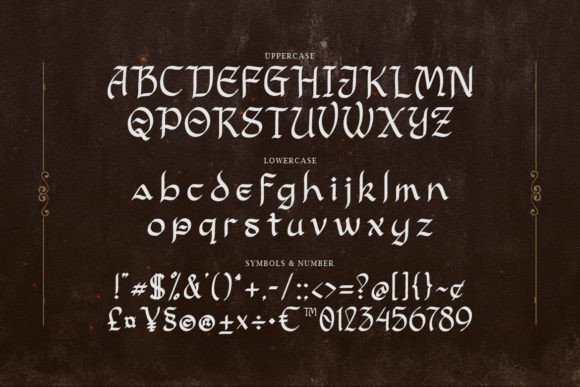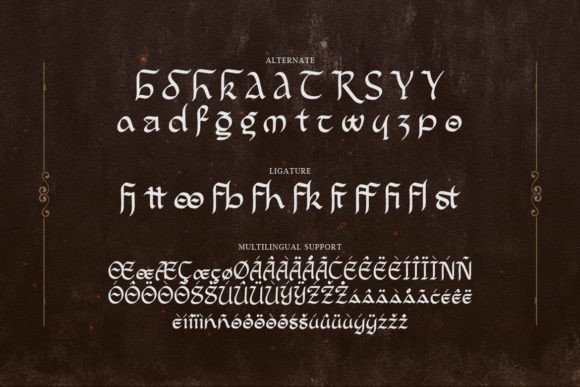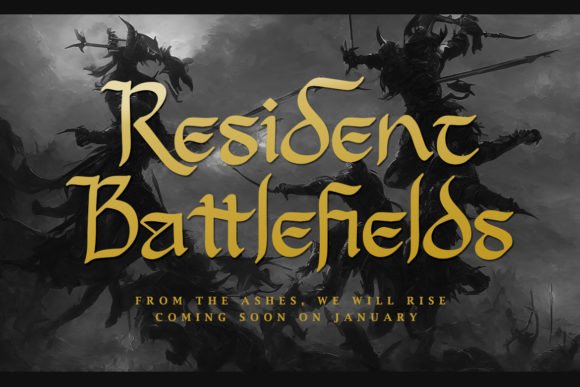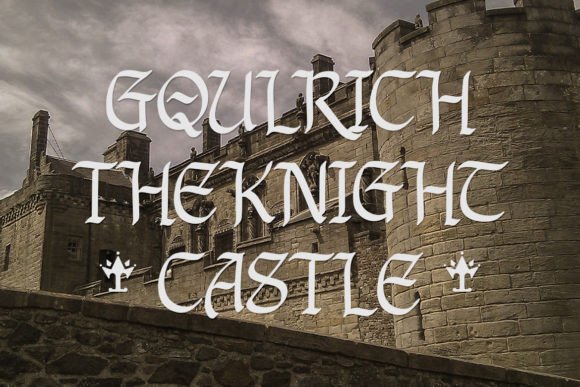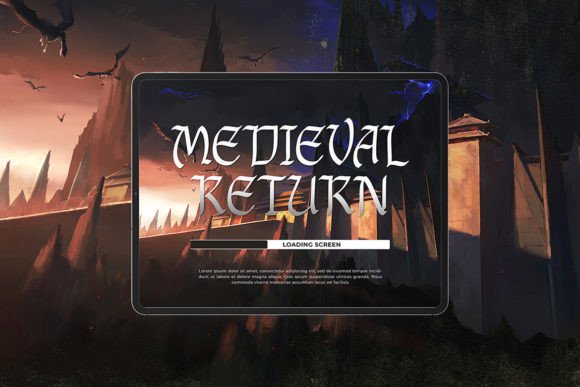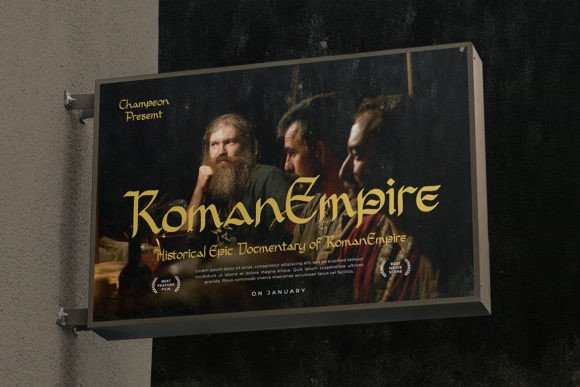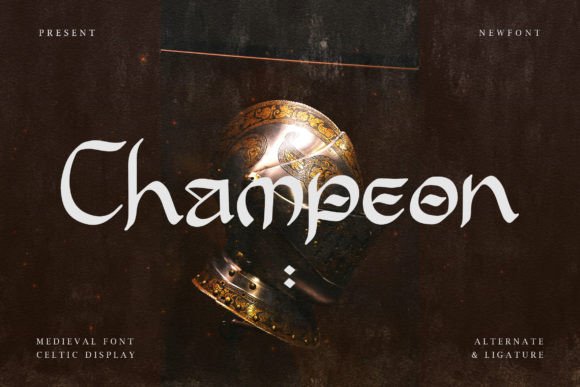
Introducing Champeon Font: A Medieval-Inspired Masterpiece
In the world of typography, fonts play a crucial role in conveying the tone and aesthetic of a design project. For designers and crafters working on historical-themed projects, a font that evokes the spirit of the medieval era can be a valuable asset. This is where Champeon Font comes in – a fun and interesting display font that embodies a unique, medieval vibe.
The Inspiration Behind Champeon Font
Champeon Font draws inspiration from a bold medieval Gothic-looking letter type, reminiscent of the ornate and intricate lettering found in ancient manuscripts and stone carvings. The font’s creator aimed to capture the essence of this bygone era, infusing Champeon with a sense of grandeur and mystique. The result is a font that is both visually striking and historically evocative.
Key Features of Champeon Font
So, what makes Champeon Font so special? Here are a few key features that set it apart:
- Unique Medieval Vibe: Champeon Font boasts a distinctive, medieval-inspired aesthetic that is perfect for historical-themed projects, such as movie titles, posters, and packaging.
- Bold and Eye-Catching: With its bold lines and ornate details, Champeon Font is designed to grab attention and make a statement.
- Display Font: Champeon is a display font, optimized for use in headlines, titles, and short phrases.
- Versatile: Despite its medieval inspiration, Champeon Font can be used in a variety of contexts, from fantasy and adventure projects to historical dramas and documentaries.
Use Cases for Champeon Font
Champeon Font is an incredibly versatile font that can be used in a wide range of design projects, including:
- Movie and TV Titles: Add a touch of medieval flair to your movie or TV title sequences with Champeon Font.
- Posters and Flyers: Create eye-catching posters and flyers for historical events, festivals, or exhibitions.
- Packaging Design: Use Champeon Font to add a unique, historical touch to product packaging, such as labels for craft beers or specialty foods.
- Book Covers: Give your historical fiction or fantasy book covers a bold, eye-catching look with Champeon Font.
Tips for Using Champeon Font
To get the most out of Champeon Font, here are a few tips to keep in mind:
- Use it sparingly: As a display font, Champeon is best used in moderation. Use it for headlines and titles, and pair it with a simpler font for body text.
- Experiment with colors: Champeon Font looks great in a range of colors, from rich golds and reds to deep blues and blacks.
- Play with textures: Add depth and interest to your design by combining Champeon Font with textures and patterns inspired by medieval art and architecture.
Champeon Font is a unique and captivating display font that is sure to add a touch of medieval magic to your design projects. With its bold lines, ornate details, and historical inspiration, Champeon is the perfect choice for designers and crafters working on historical-themed projects. Whether you’re creating movie titles, posters, packaging, or book covers, Champeon Font is sure to make a lasting impression.